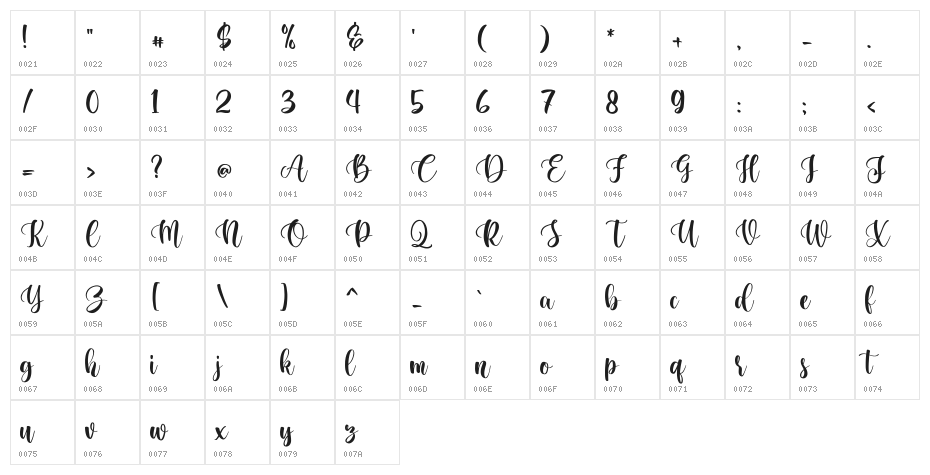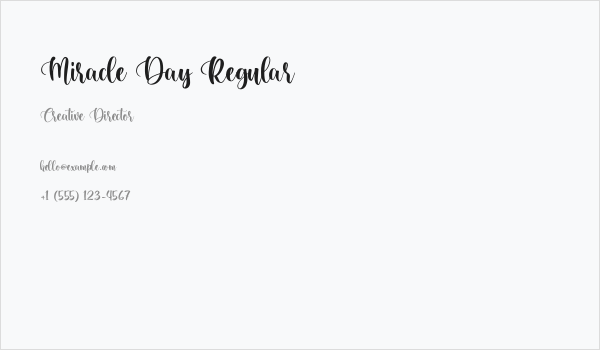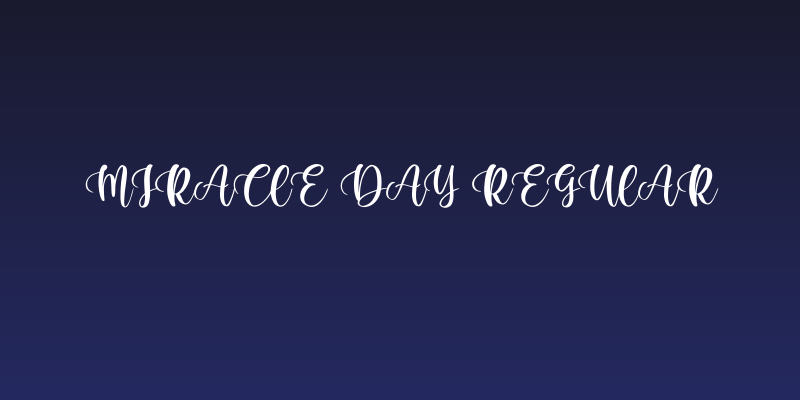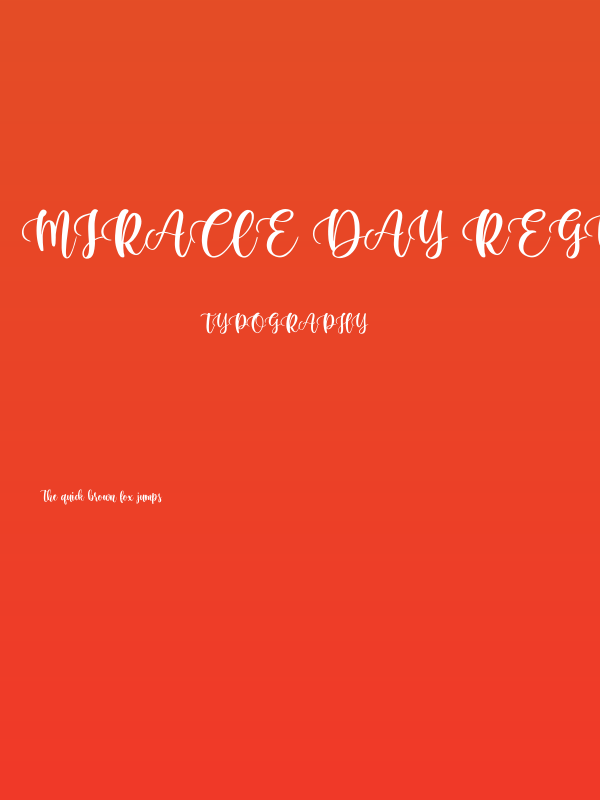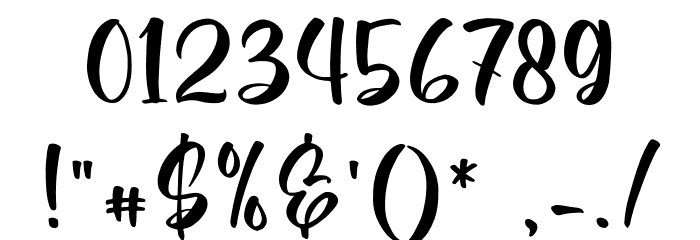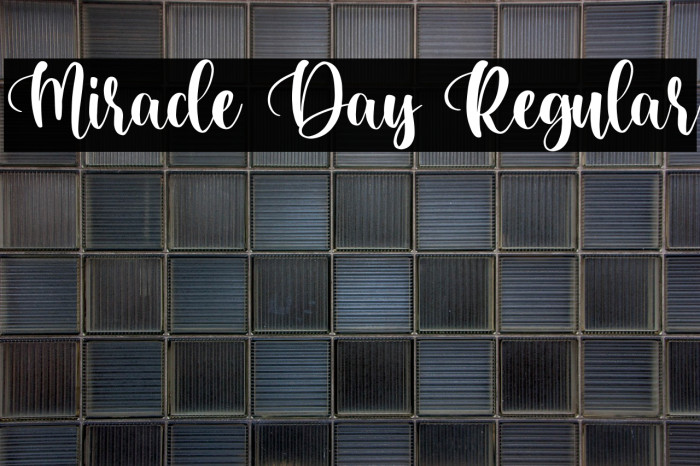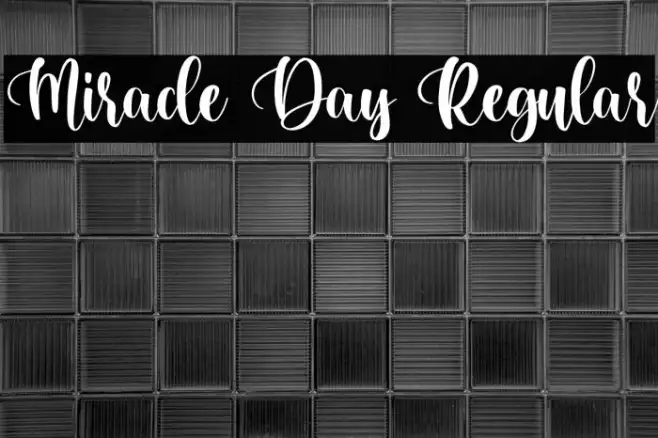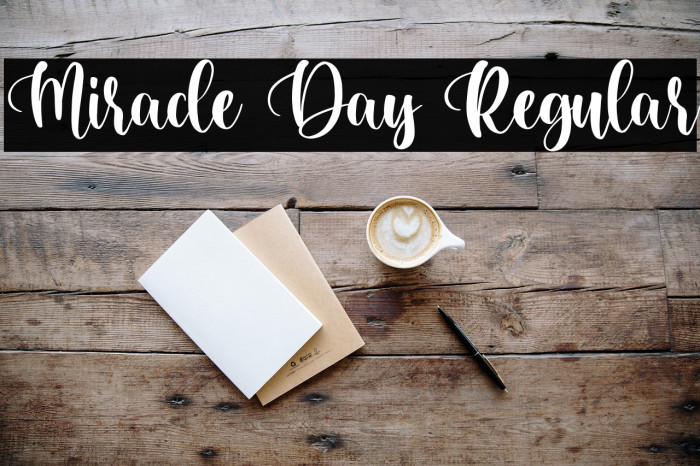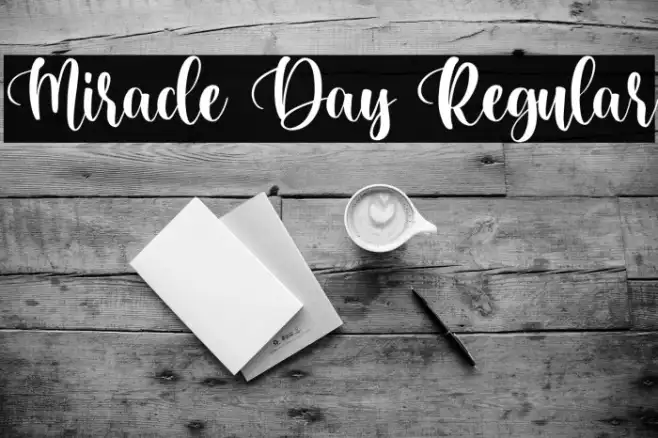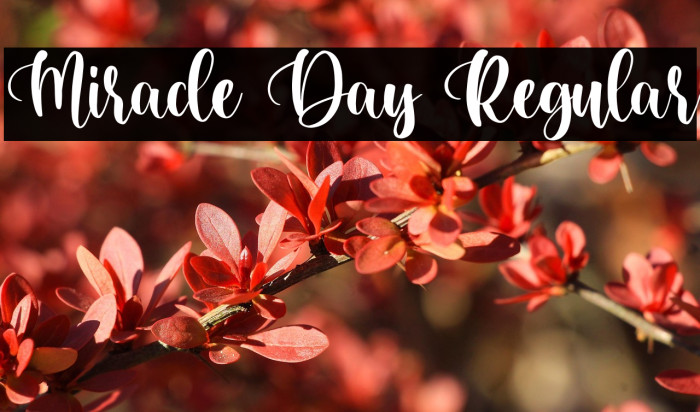
Miracle Day Regular Font
Miracle Day Regular Description
This font showcases a lively and expressive script style, characterized by its flowing, cursive letterforms. The uppercase letters are elegantly crafted with sweeping curves and loops, giving a sense of movement and grace. The lowercase letters maintain a consistent style, with smooth connections and a playful bounce. The numerals are bold and rounded, complementing the overall aesthetic. Special characters are thoughtfully designed, maintaining the font's cohesive look. This font exudes a sense of creativity and elegance, making it suitable for various artistic applications.
| Proposed Projects | Ideal for wedding invitations, greeting cards, branding, and social media graphics. |